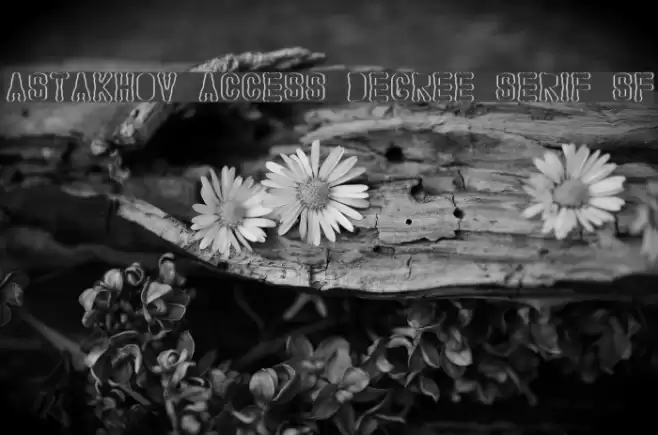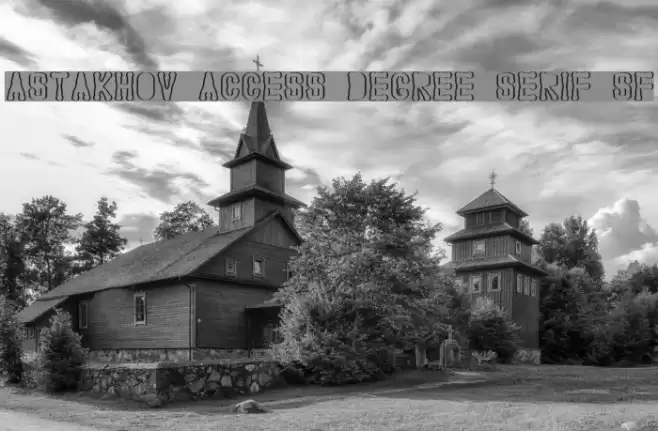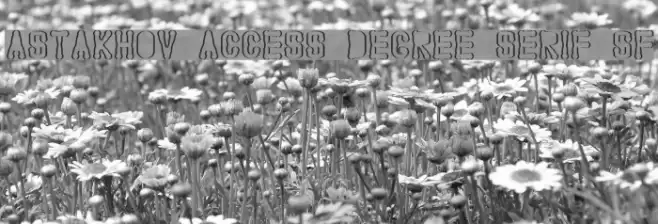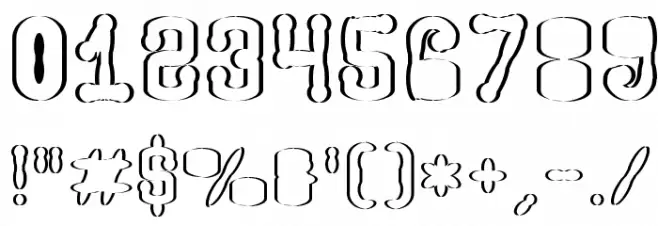
Astakhov Access Degree Serif SF Font
Astakhov Access Degree Serif SF Description
This font features a bold and playful design with a unique outline style that gives each character a three-dimensional appearance. The letters are crafted with a hollow interior and a thick, uneven border that adds a sense of movement and dynamism. The uppercase and lowercase letters maintain a consistent style, while the numbers and special characters complement the overall aesthetic. The font's distinctive look makes it suitable for creative and eye-catching designs, offering a modern twist on traditional serif elements.
A bold, playful font with a unique outlined, three-dimensional style from Uncategorized fonts.
- Proposed Projects: Ideal for posters, headlines, branding, and any project requiring a bold, eye-catching typeface.